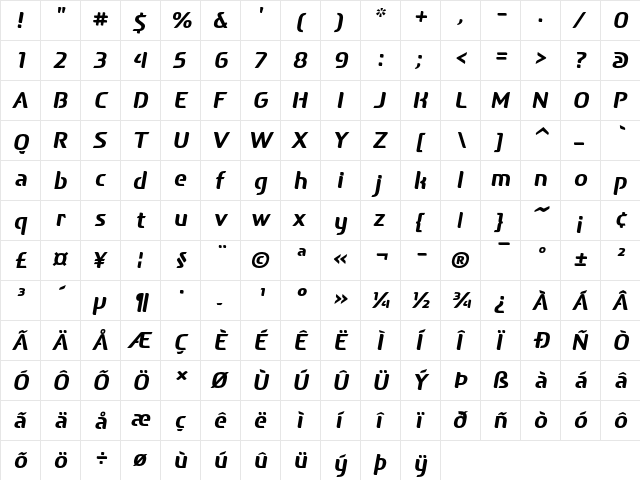
After Headline Bold Italic
| Designer | Fabio Luiz Haag |
Design Context for After Headline Typeface
After Headline is a composed and adaptable typeface that performs quietly and consistently across a wide range of design contexts. The slanted form adds forward momentum and visual energy. Its bold stroke weight gives it real presence on the page.
Pro Tip: Use After Headline for emphasis, pull quotes, and subheadings where its slanted energy can add rhythm to the layout.